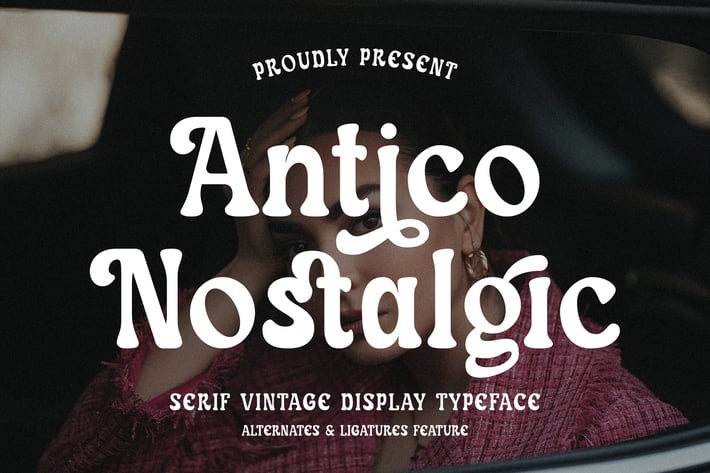
Antico Nostalgic - Serif Vintage Font
Antico Nostalgic - Serif Vintage Font contains a lowercase, uppercase, symbol, and also supports multi-language. There’s a lot of ligature in this font. Antico Nostalgic - Serif Vintage Font also comes with ligatures, stylistic alternates and many more.
this font suitable for fashion, branding, catalog and other design that you want.